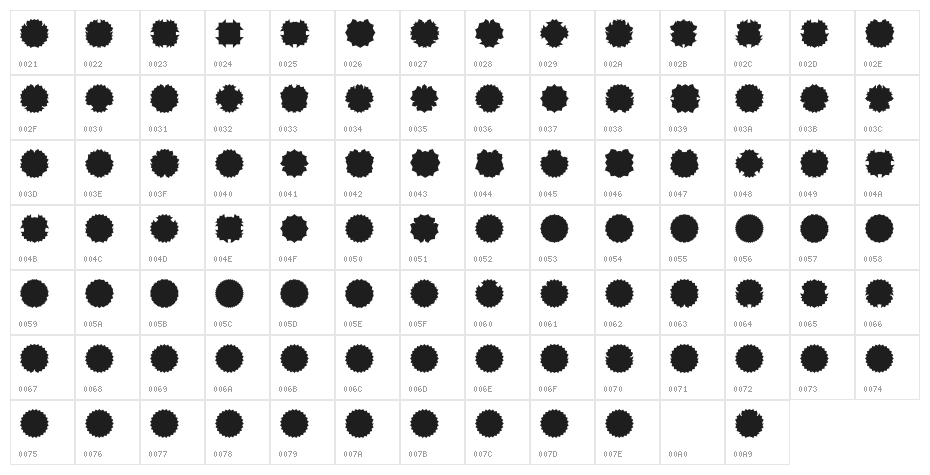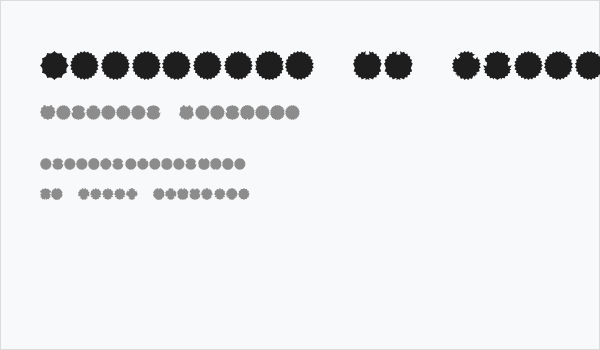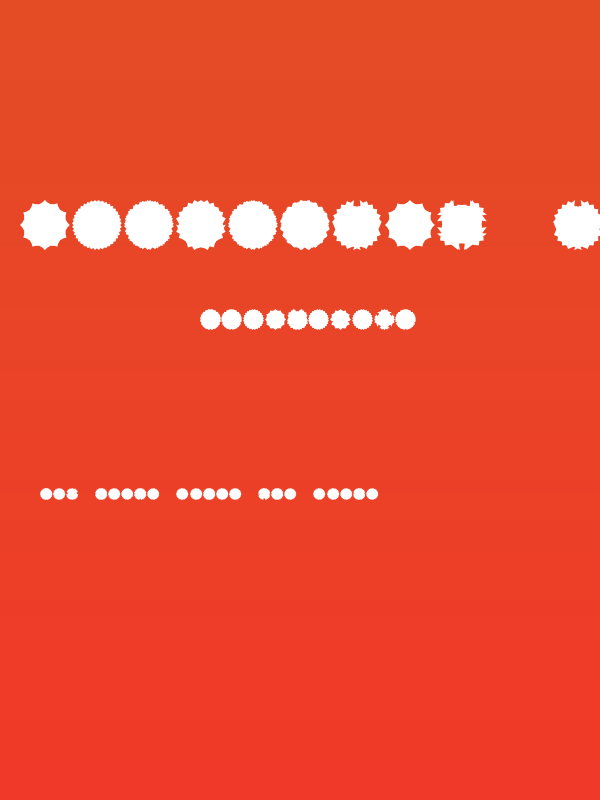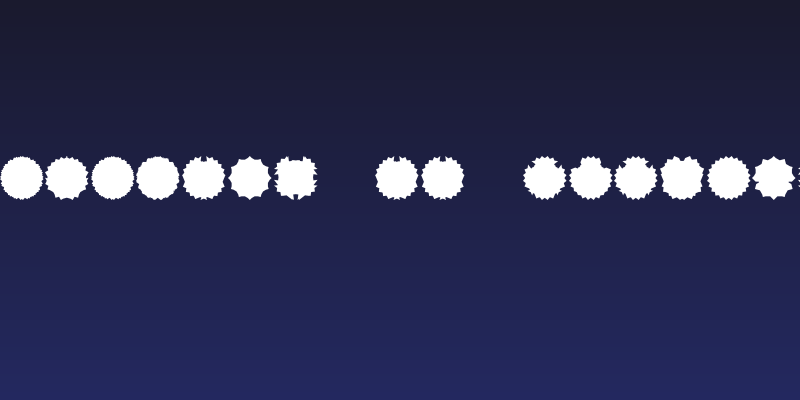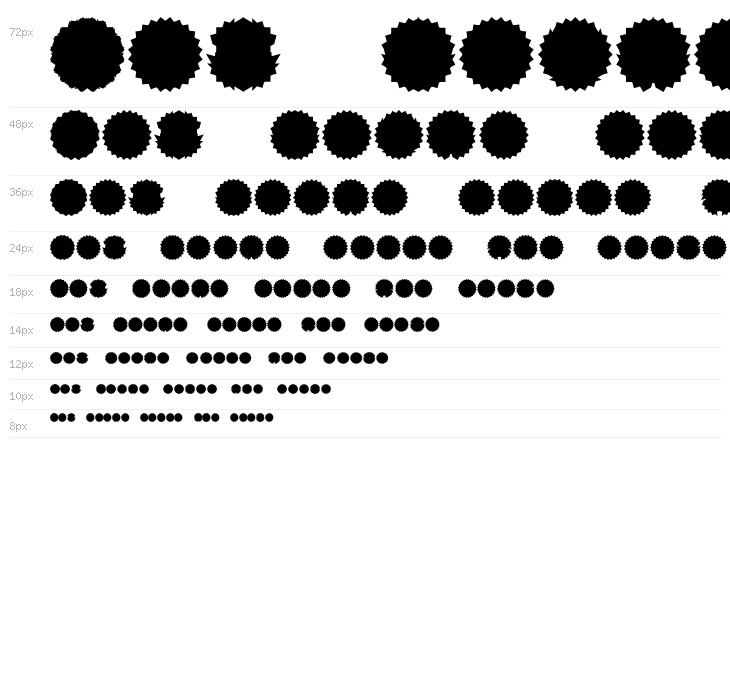
Ovulution II Membrane Font
Ovulution II Membrane Description
A highly decorative and abstract typeface where each character is represented by a spiky, circular, or irregular membrane-like silhouette, making individual letterforms nearly indistinguishable and emphasizing organic, cellular shapes.
Overall StyleDecorative, Abstract, Organic
Use CaseLogos, Posters, Experimental Headlines
Proposed ProjectsAlbum covers, experimental posters, science fiction titles, avant-garde branding, abstract art projects.